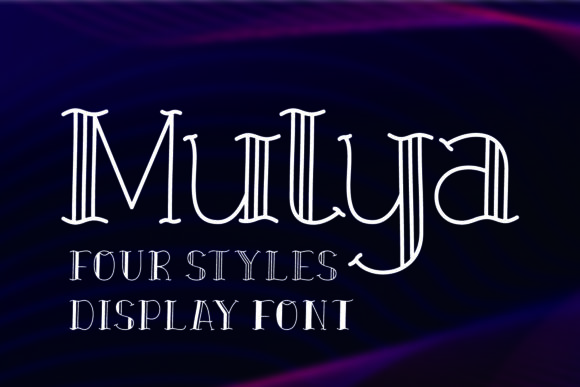
Mulya Font: A Stylish Choice for Creative Expression
Mulya is an elegant display font that stands out with its refined and sophisticated design. Its unique styling offers a blend of modern and traditional aesthetics, making it versatile for various creative applications. Whether you're designing a letterhead, crafting a title, or creating stationery, Mulya brings a touch of sophistication that can elevate your visual projects.
Why Mulya Matters to Different Audiences
The appeal of Mulya extends beyond its visual appeal. Depending on the audience's needs and goals, the same font can serve different purposes. For instance, a beginner might value its ease of use, while a professional may focus on its commercial viability. Understanding how different groups interact with Mulya helps in identifying whether it aligns with their specific requirements.
Beginners: A Gateway to Design Exploration
For those new to typography, Mulya can be an excellent starting point. Its clean lines and readable structure make it approachable for individuals who are just beginning to explore design tools. Beginners often seek fonts that are both visually appealing and easy to work with, which Mulya provides. It allows them to experiment with typography without feeling overwhelmed by complex styles.
Practical example: A student working on a school project might choose Mulya for a presentation header because it looks polished yet remains simple enough to integrate into their design without requiring advanced skills.
Professionals: Elevating Brand Identity
Professionals, such as designers, marketers, and entrepreneurs, often look for fonts that can enhance brand identity. Mulya’s elegant style can help create a strong visual presence, especially for businesses that want to convey sophistication and quality. In this context, Mulya isn’t just a font—it’s a tool for building trust and recognition.
Practical example: A boutique fashion brand might use Mulya in their logo and marketing materials to reflect a premium and stylish image that resonates with their target audience.
Creators and Hobbyists: Personal Expression
For creators and hobbyists, Mulya offers a way to express individuality through design. Whether it's for handmade cards, digital art, or personal branding, the font’s unique character can add personality to their work. These users often prioritize creativity and originality, and Mulya supports that by offering a distinctive aesthetic.
Practical example: An artist creating custom greeting cards might use Mulya to add a touch of elegance to their designs, making each piece more memorable and visually engaging.
Business Owners: Enhancing Visual Communication
Small business owners and entrepreneurs need fonts that communicate professionalism and reliability. Mulya’s refined appearance can contribute to a more trustworthy brand image, helping to build customer confidence. When used in signage, packaging, or website headers, it can reinforce the brand’s identity and values.
Practical example: A local café might use Mulya in their menu design to create a welcoming and upscale atmosphere that appeals to their clientele.
Consumers: Recognizing Quality and Style
Consumers, whether they are end-users of products or services, often notice the visual elements that accompany them. Mulya can play a role in shaping their perception of a product or brand. Its elegant style can influence how a consumer feels about the overall experience, making it relevant not just for creators but also for those who interact with the final output.
Priorities That Shape Font Selection
When evaluating a font like Mulya, different priorities come into play depending on the user’s role and goals. Ease of use, cost, quality, flexibility, and presentation are all factors that influence font choice. For instance, a beginner might prioritize ease of use, while a designer may focus on flexibility and customization options.
- Beginners: Prioritize simplicity and readability.
- Professionals: Value versatility and brand alignment.
- Business Owners: Focus on reliability and visual impact.
- Consumers: Notice how the font affects their overall experience.
Understanding these priorities helps users determine if Mulya fits their needs. It’s not just about looking good—it’s about how well the font supports the intended message and purpose.
Choosing the Right Font for Your Needs
Mulya is not a one-size-fits-all solution, but it does offer a range of benefits that can suit various applications. Whether you’re a hobbyist looking for creative inspiration, a professional seeking to enhance your brand, or a business owner aiming to improve your visual communication, Mulya has something to offer.
Ultimately, the decision to use Mulya depends on your specific goals and the context in which you’ll apply it. By considering your audience, project type, and design needs, you can determine if Mulya is the right choice for you.